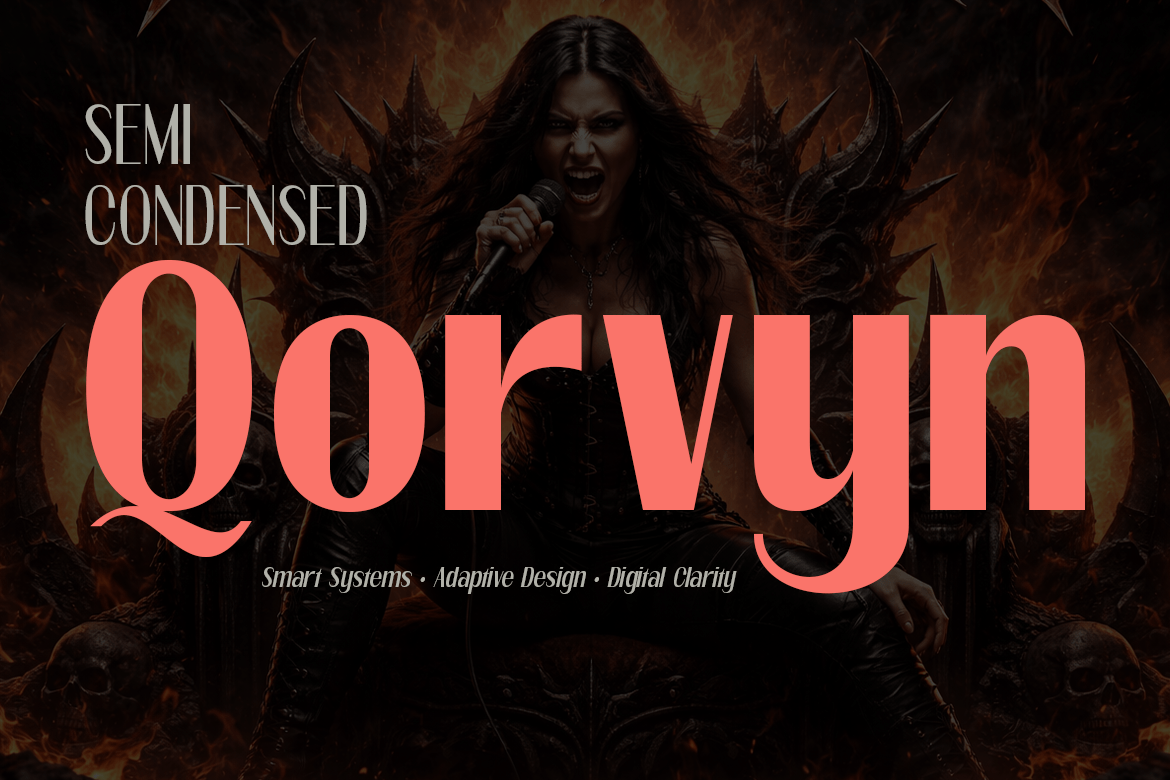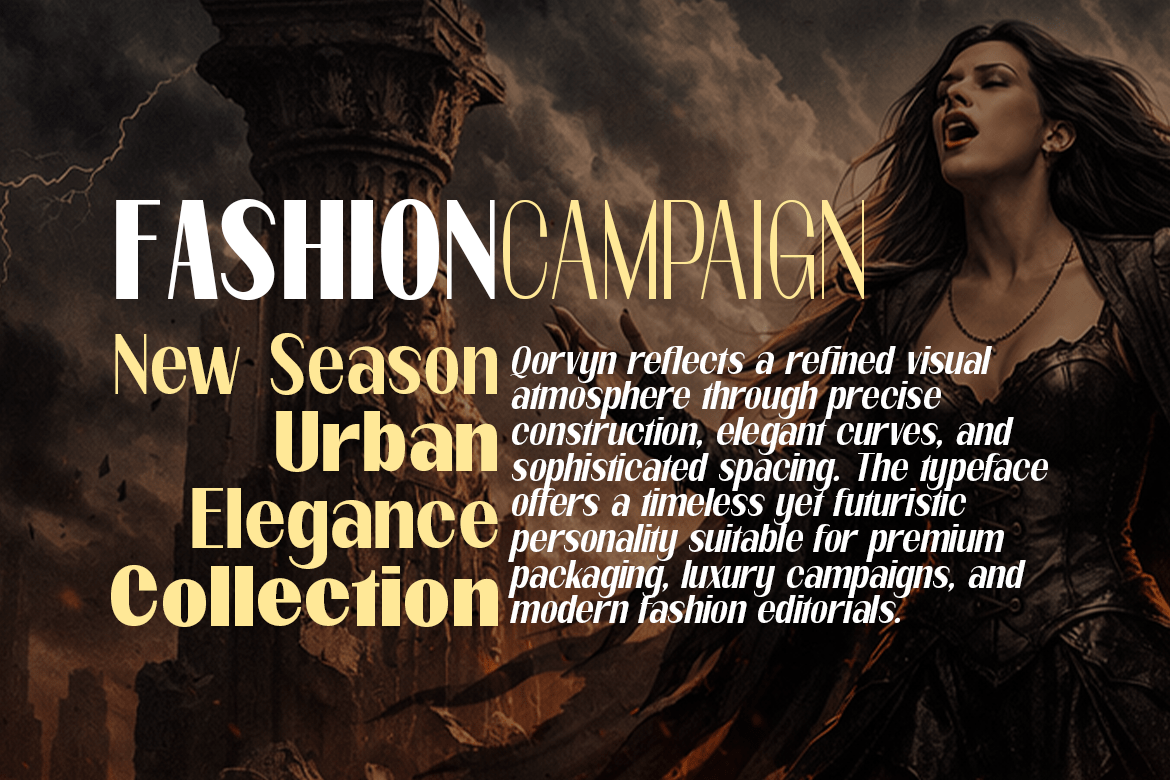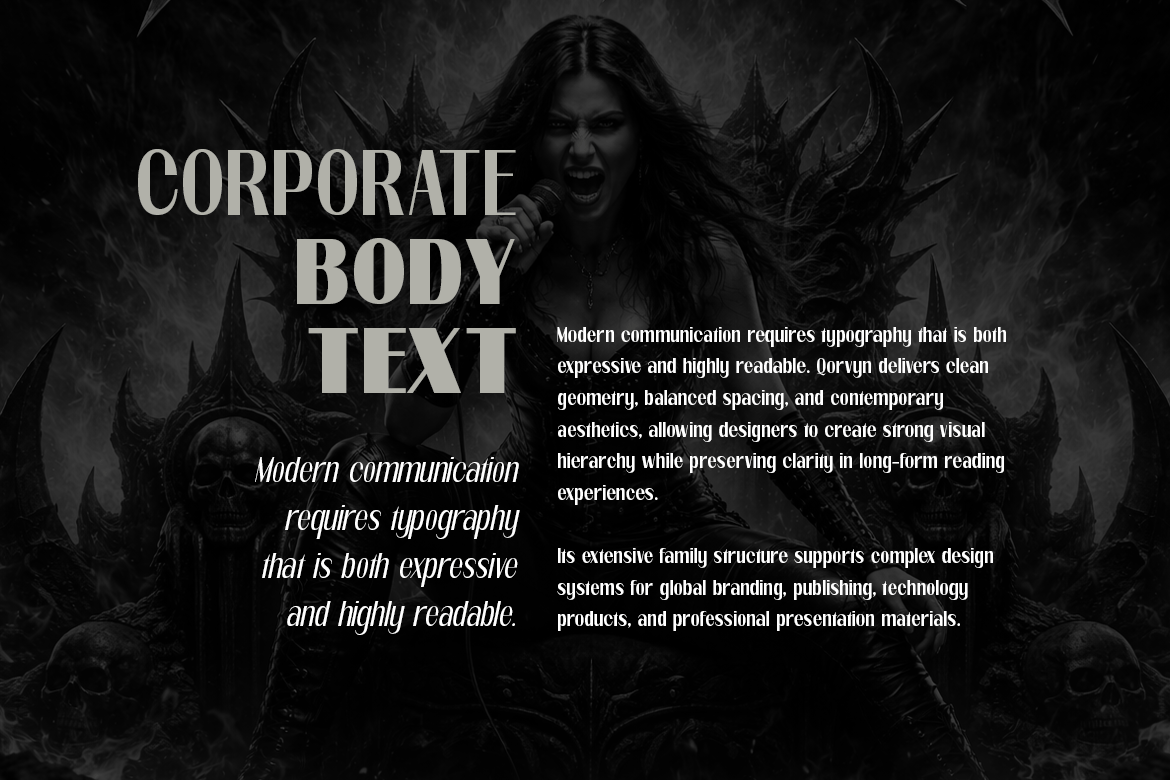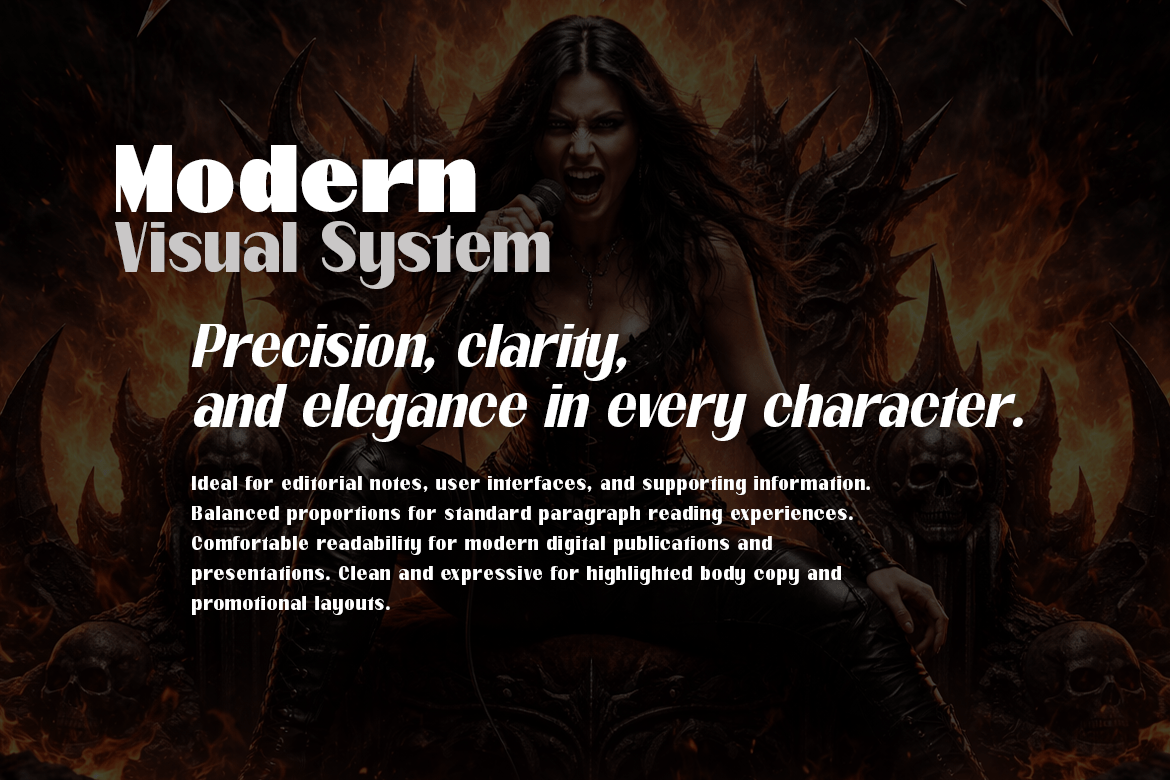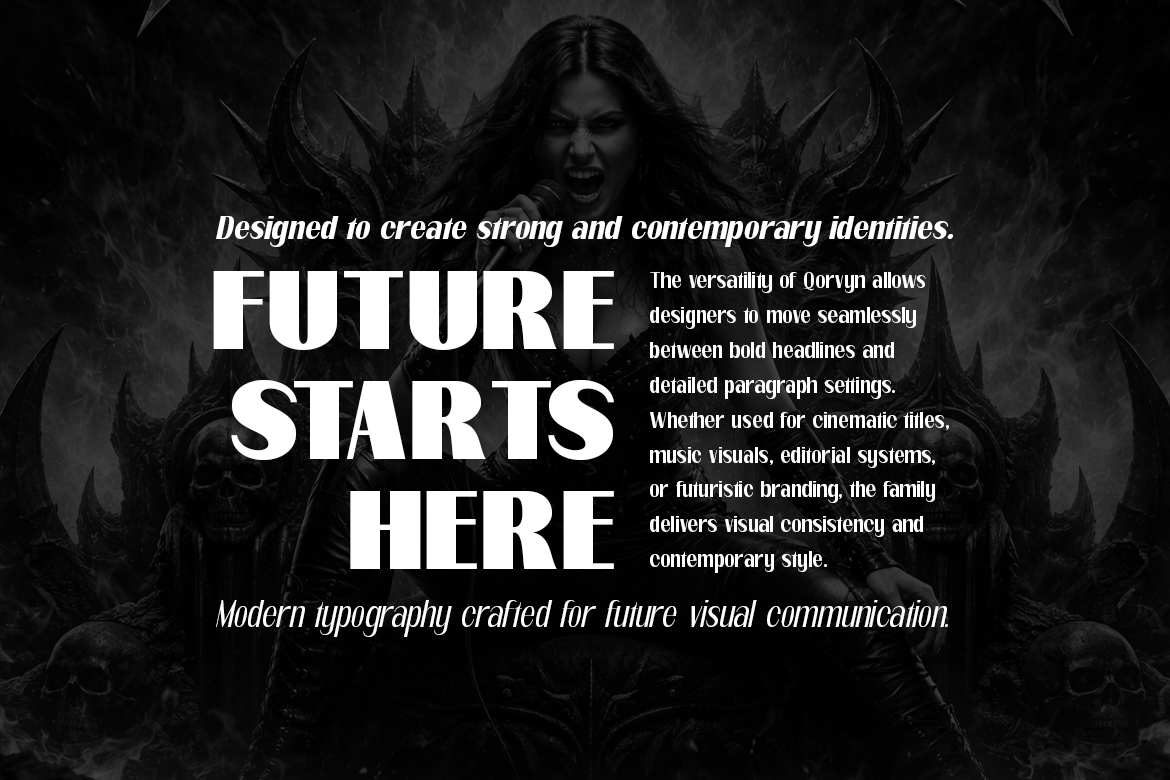
Qorvyn Semi Condensed
Qorvyn Semi Condensed is a modern sans-serif typeface family that blends contemporary clarity with balanced proportions and versatile functionality. Designed with a semi-condensed structure, it offers a harmonious middle ground between compact efficiency and open readability, making it highly adaptable for branding, editorial layouts, advertising, web design, interfaces, packaging, and display typography. The family includes 18 styles — 9 upright and 9 italic — ranging from elegant thin weights to powerful black styles.
The upright styles convey a clean, structured, and confident tone with refined geometric forms and smooth visual rhythm. The italic styles introduce a dynamic sense of movement and sophistication, adding expressive flexibility while preserving consistency across the family. Qorvyn Semi Condensed is crafted to perform seamlessly in both large headlines and extended typographic systems, offering a modern and professional character suitable for creative, corporate, and futuristic visual identities. With its balanced width, strong personality, and polished details, the family delivers both style and functionality across print and digital applications.
The Qorvyn Semi Condensed font family includes 231 glyphs.